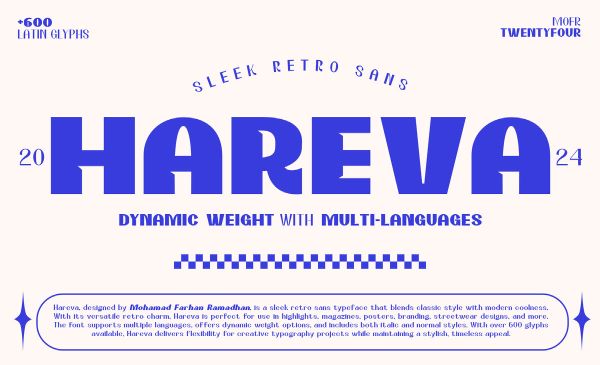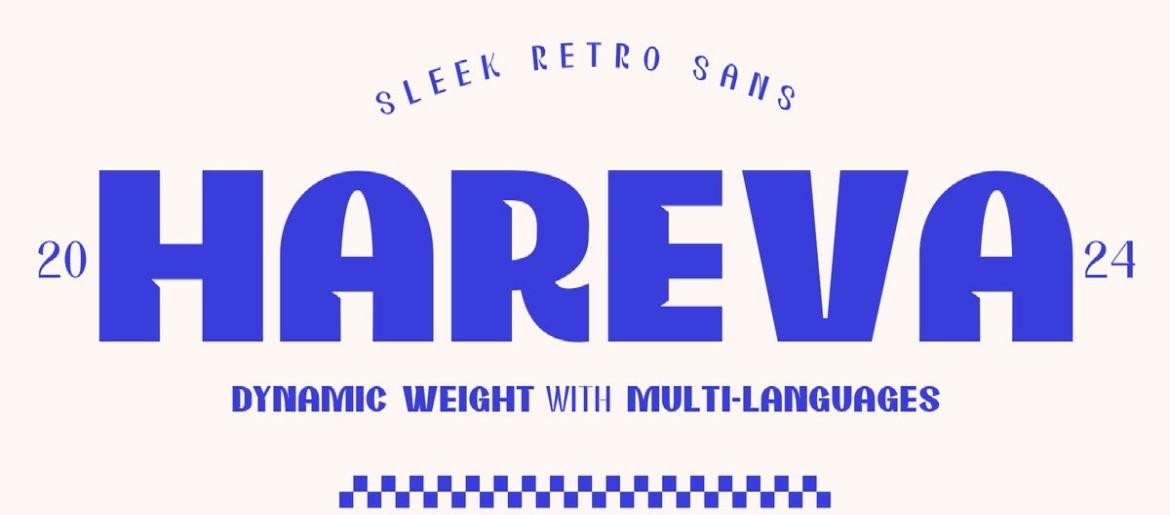
Hareva Font
Hareva by Mohamad Farhan Ramadhan is a sleek retro sans-serif that navigates the tension between nostalgic charm and modern polish with considerable ease. Its streamlined letterforms carry an unmistakable mid-century character — the kind of confident, whimsical elegance that feels equally at home on a magazine cover, a poster, or a streetwear label — while remaining fully functional across a wide range of contemporary applications. With over 600 glyphs, multi-language compatibility, and flexible weight and italic options, it is a well-equipped workhorse that elevates everything it touches with chic, understated audacity. A free demo version is available for personal use.